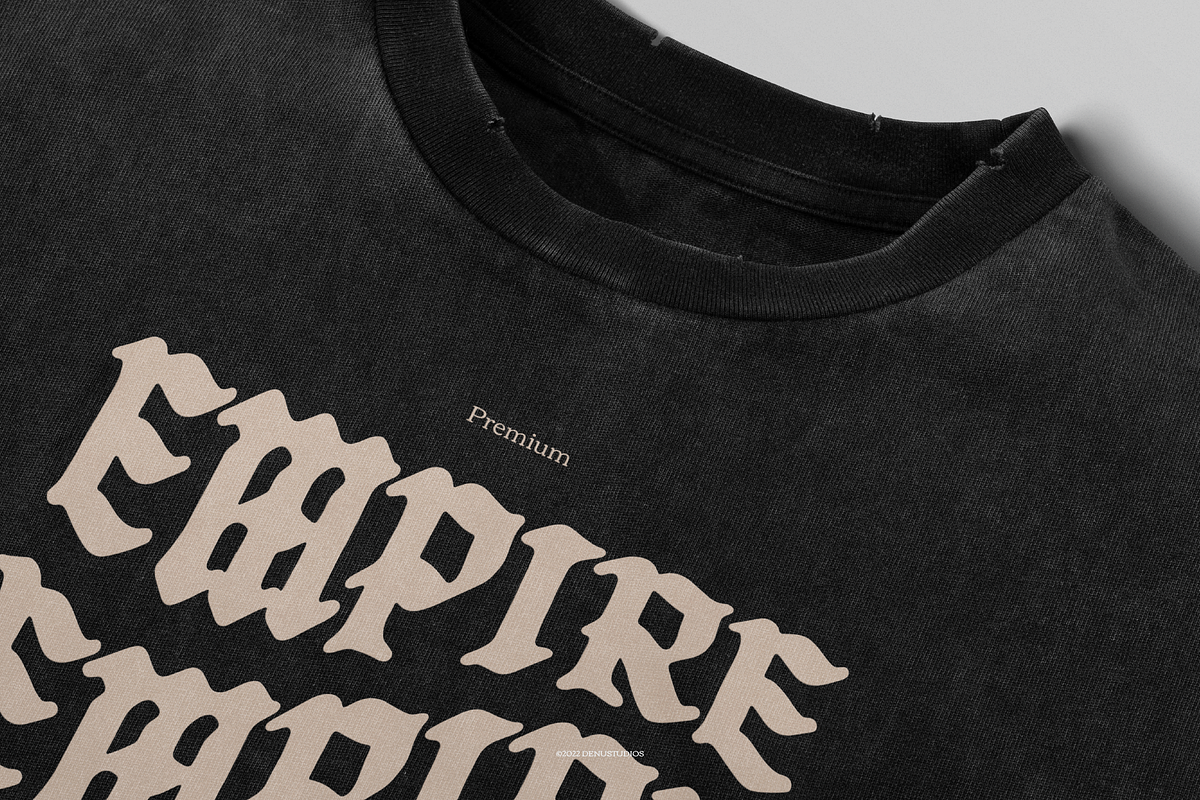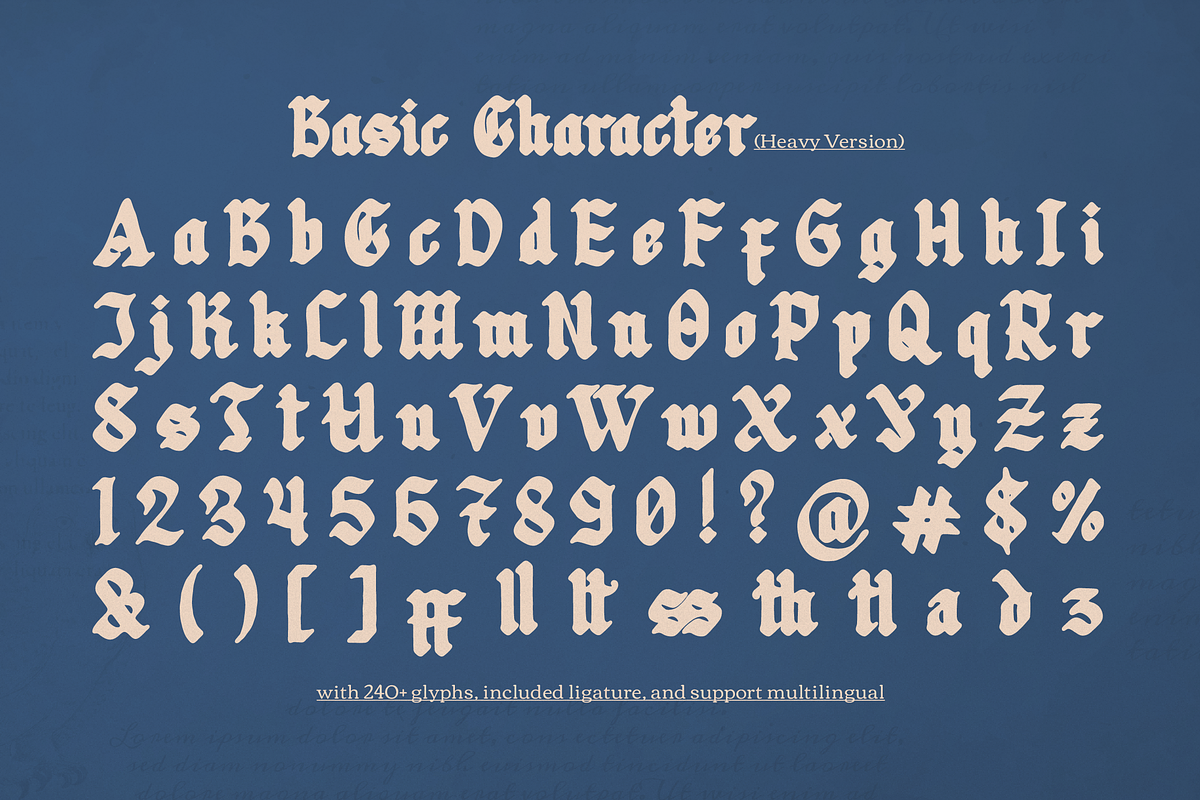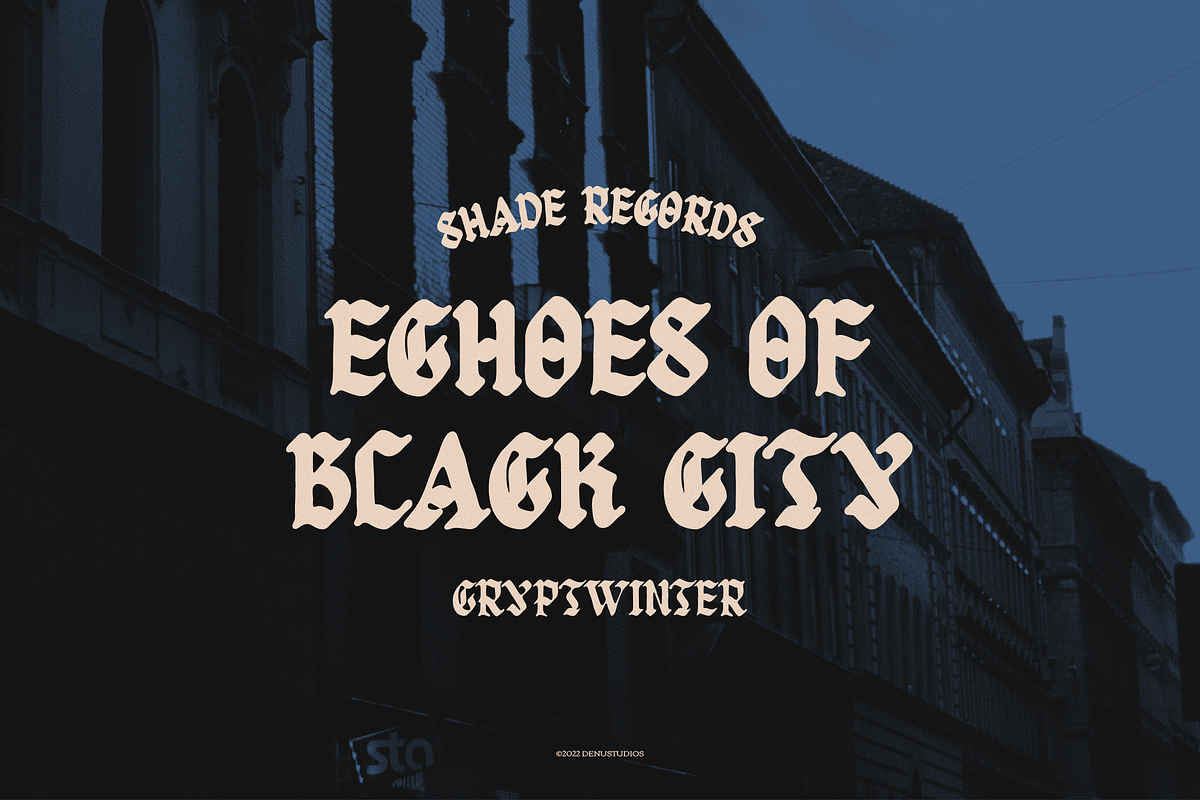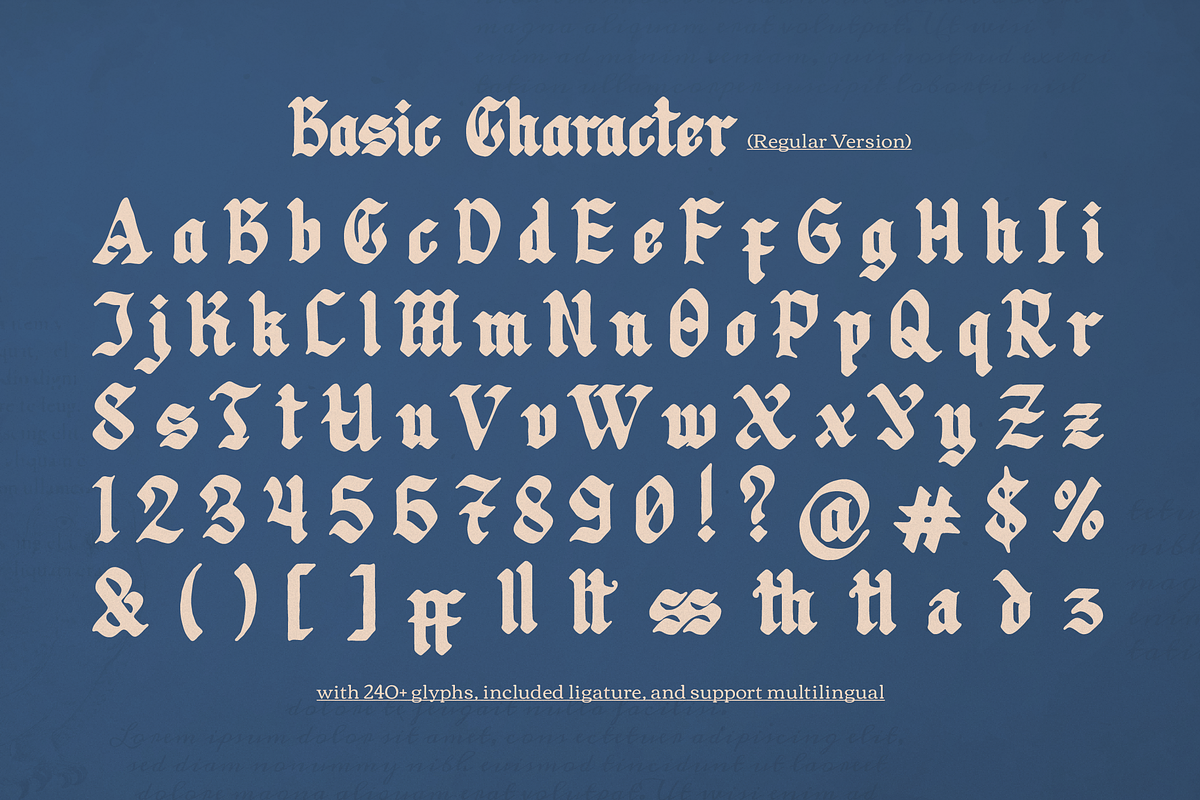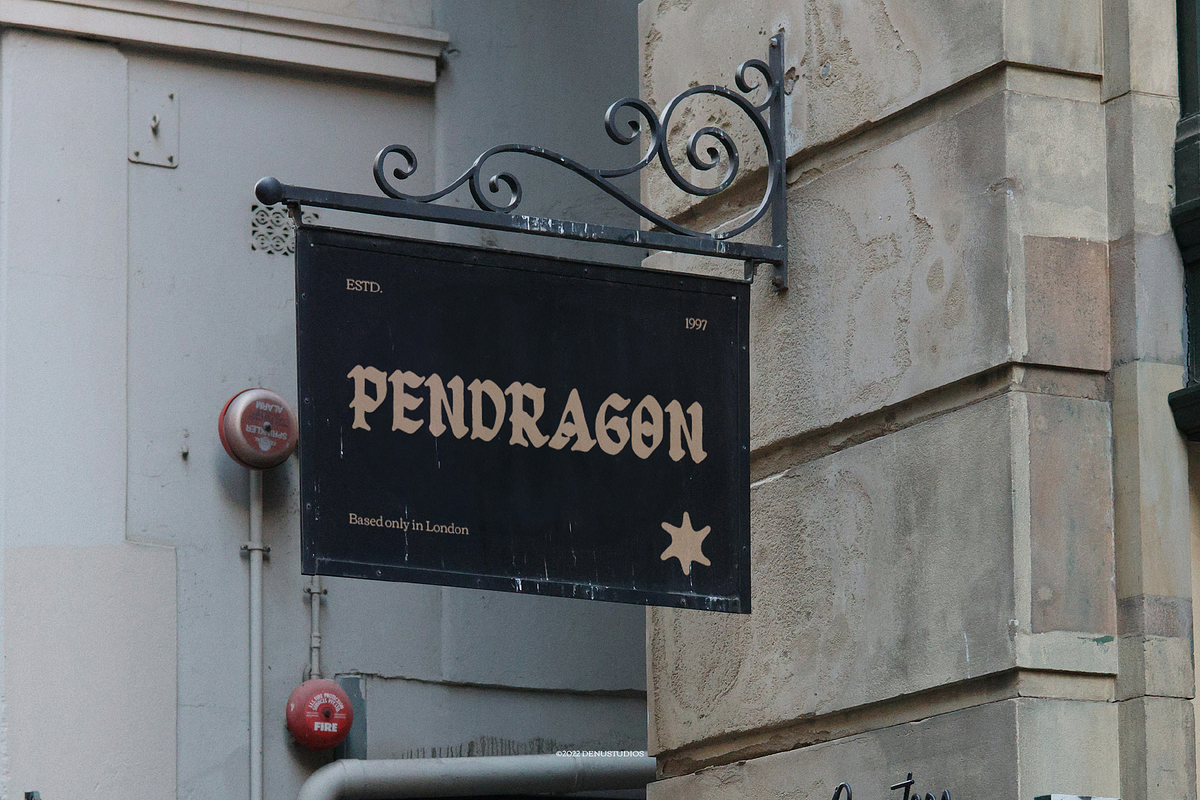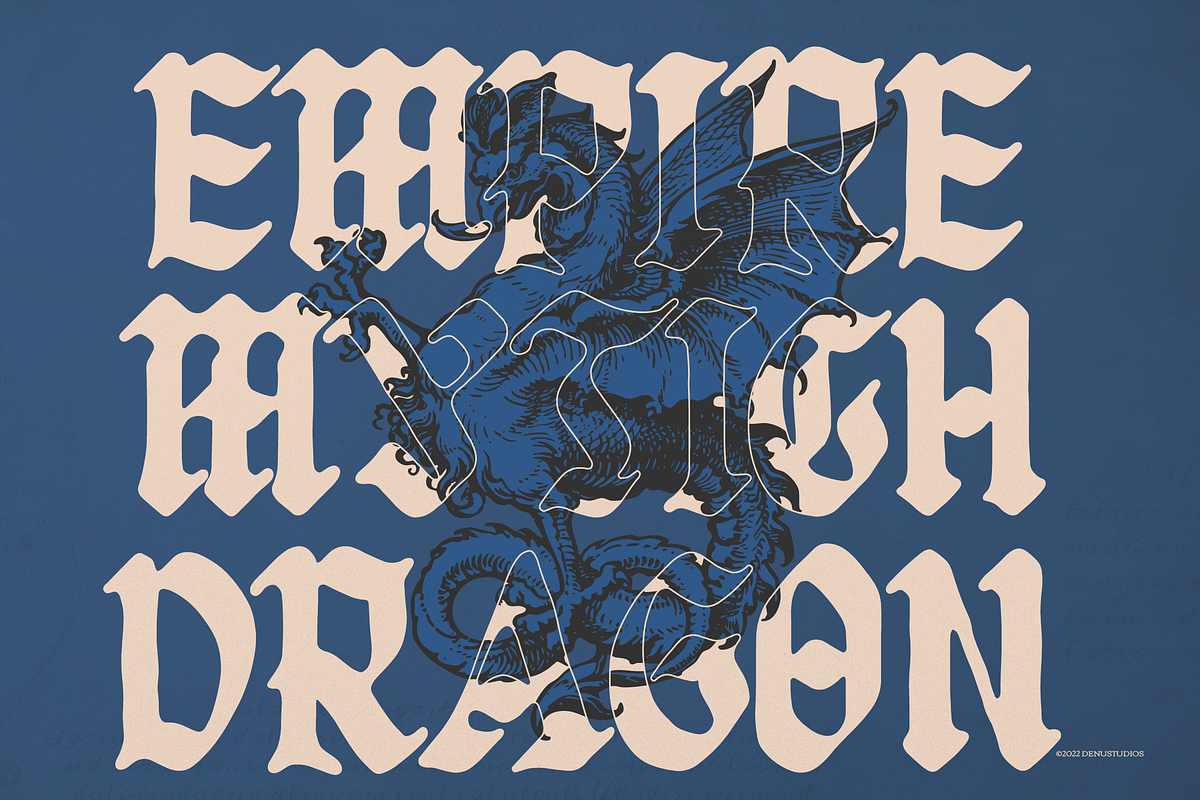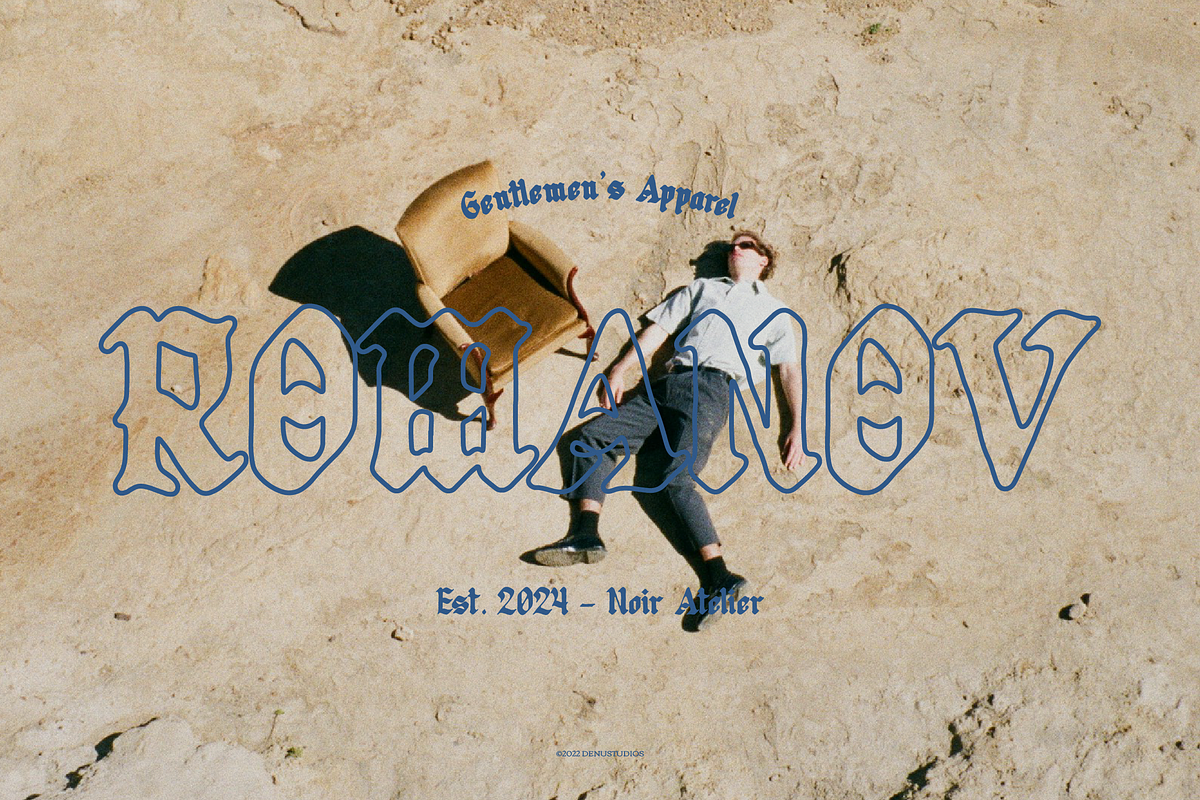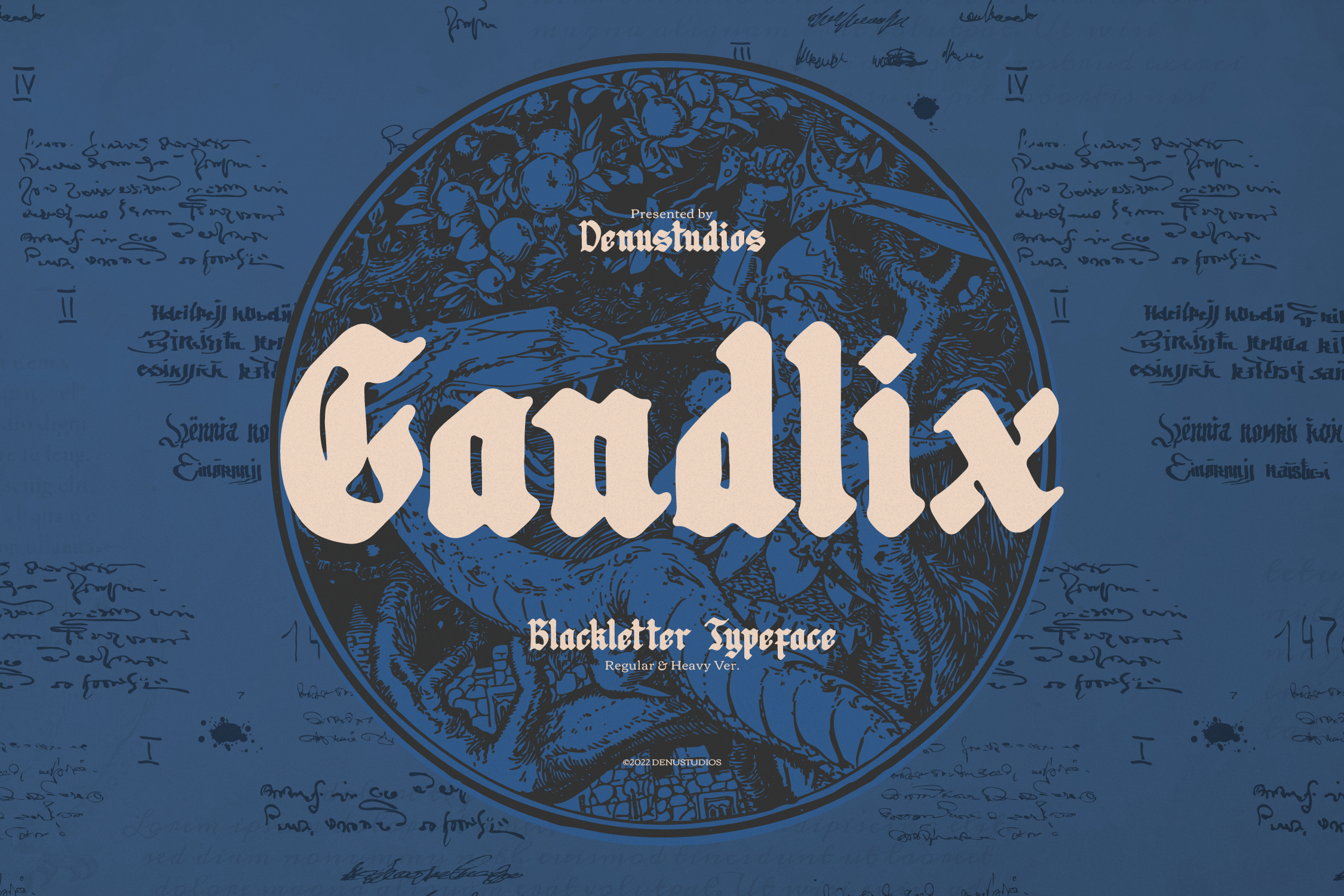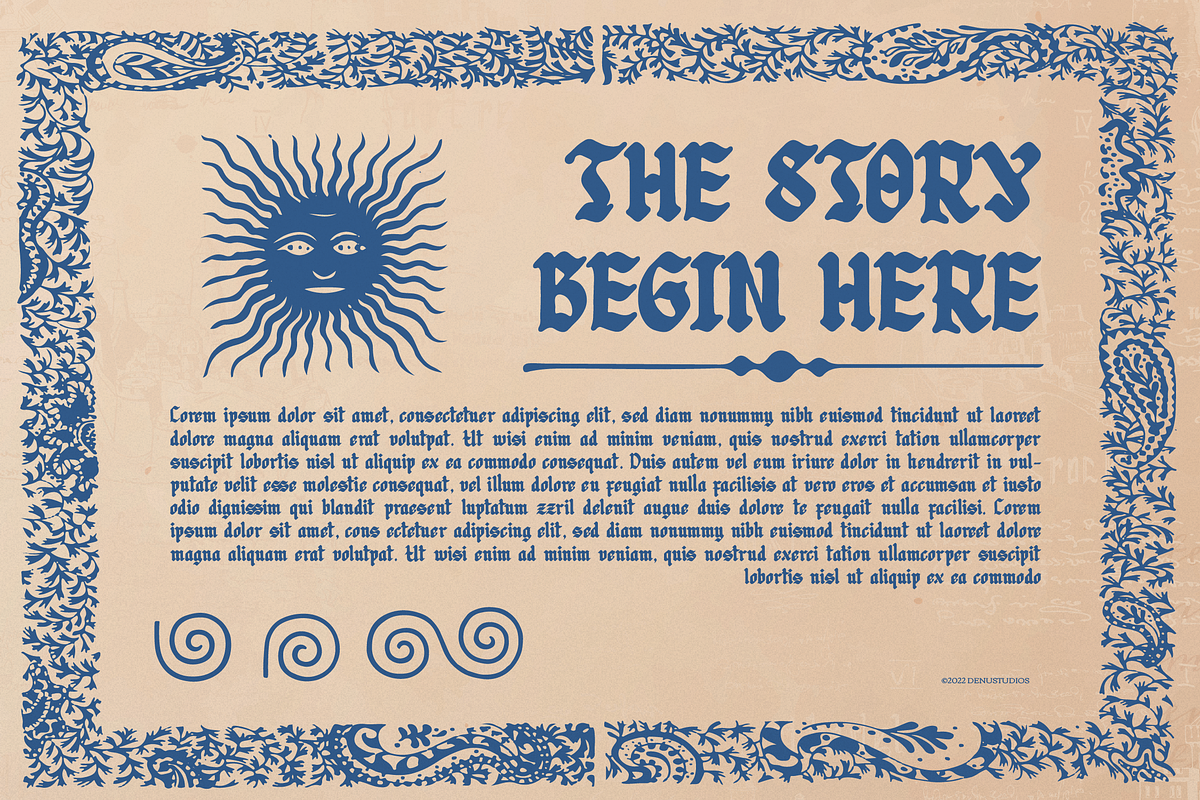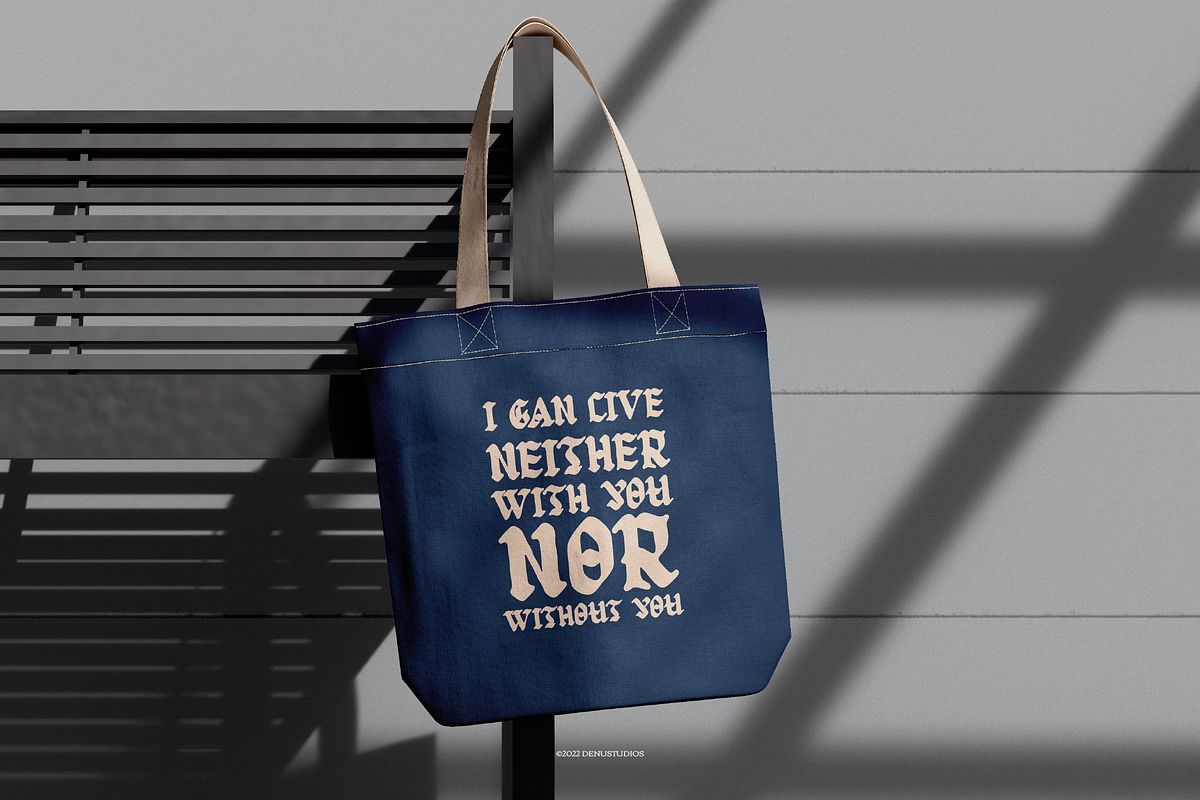
Candlix | Blackletter Typeface
Candlix | Blackletter Typeface, from Denustudios, suitable for any projects such as: logos, branding projects, homeware designs, product packaging, mugs, quotes, posters, shopping bags, t-shirts, book covers, name card, invitation cards, greeting cards, label, photography, watermark, special events, and all your other lovely projects that need a Blackletter taste. =============================================================== What’s Included : • Candlix (OTF/TTF/WOFF) • Web Font (Only WOFF format) • Standard glyphs • Alternate and Ligature • Works on PC & Mac • Simple installations • Accessible in the Adobe Illustrator, Adobe Photoshop, Adobe InDesign, even work on Microsoft Word and Other Software. • PUA Encoded Characters – Fully accessible without additional design software. • Fonts include multilingual support Hope you enjoy with our font!